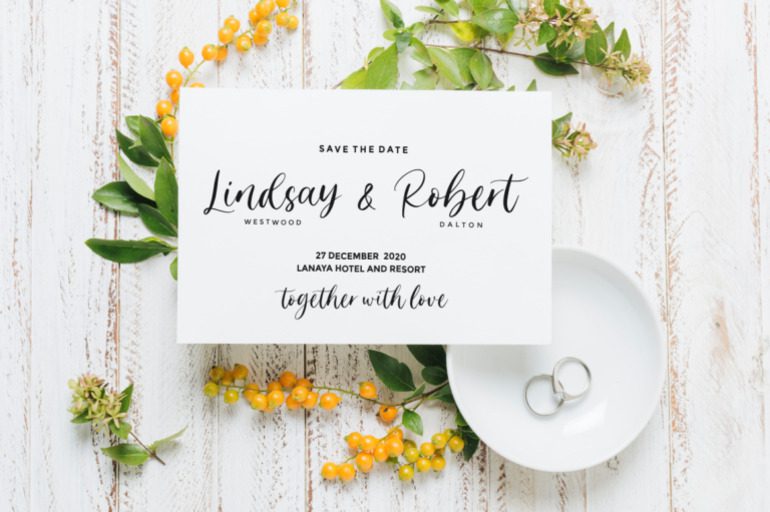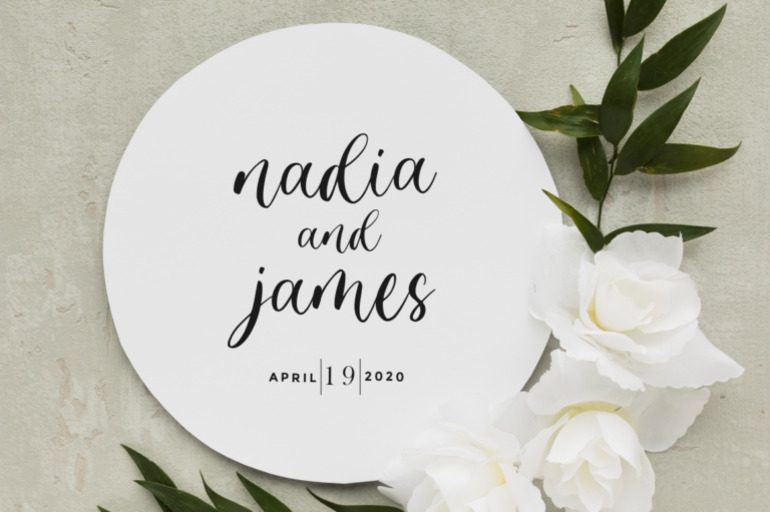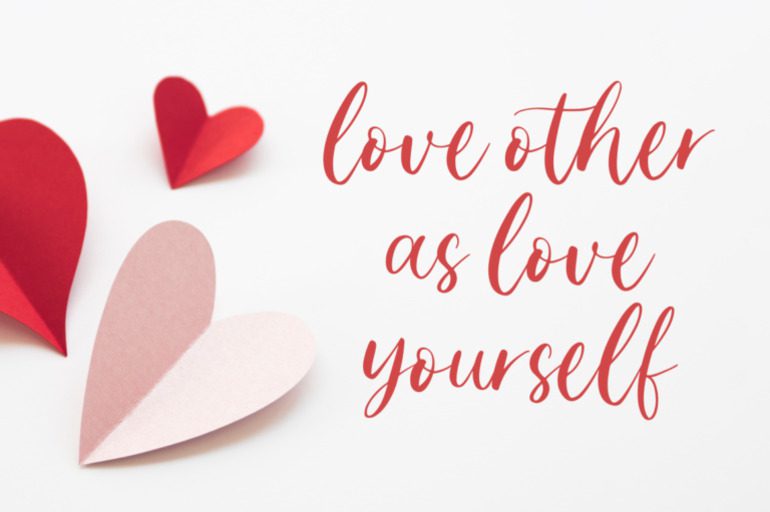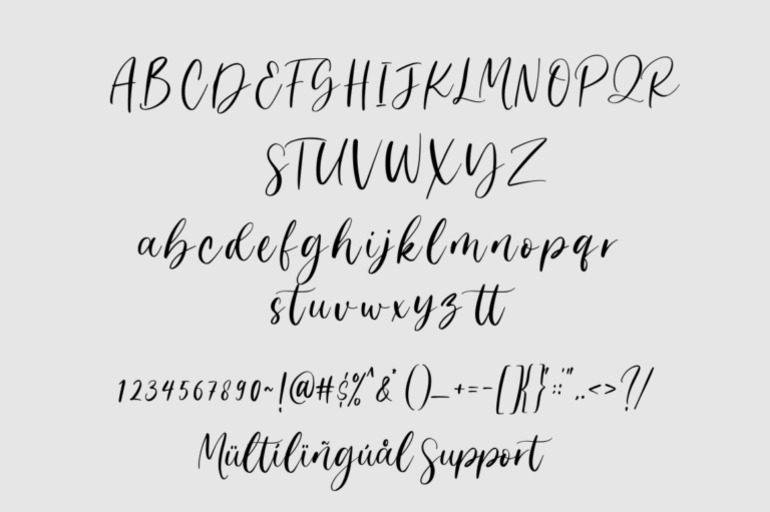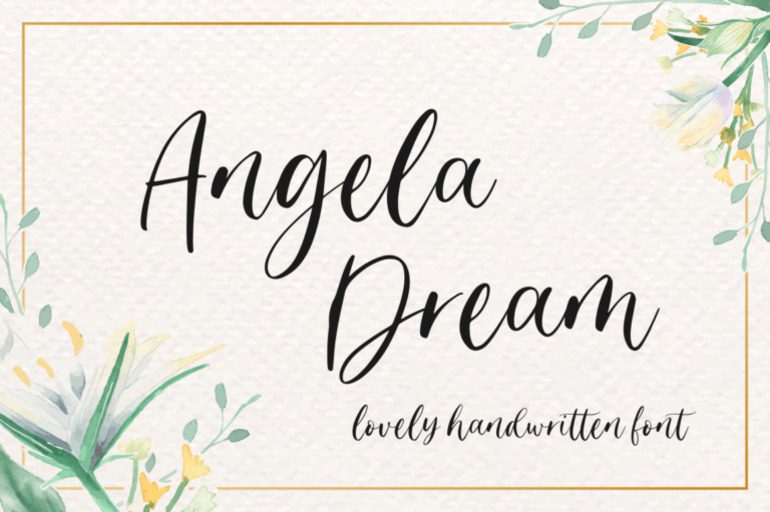
Angela Dream Font
Angela Dream is a whimsical and feminine font with a touch of vintage charm. Its delicate script and flowing lines create a sense of elegance and romance. Perfect for projects that require a soft and dreamy aesthetic, such as wedding invitations, baby announcements, or branding for beauty products.